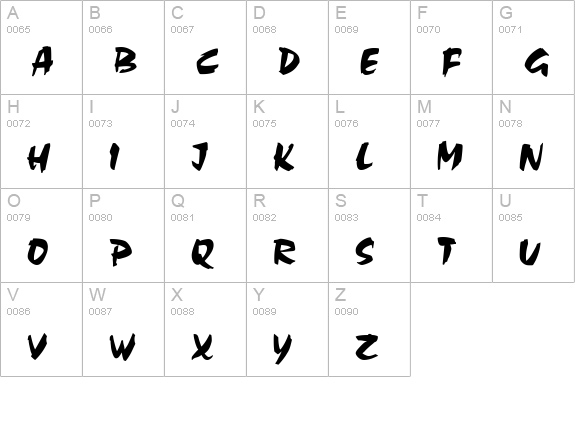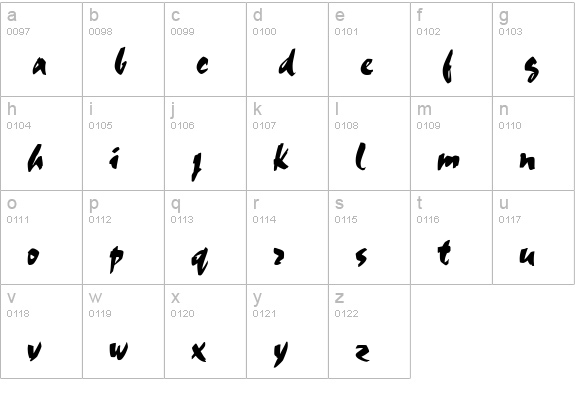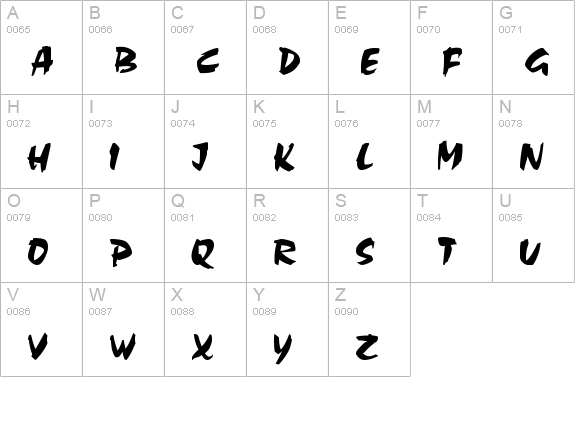
Choc MN font is a charming and elegant typeface that exudes a sense of sophistication and style. With its smooth curves and vintage-inspired design, this font is perfect for adding a touch of class to any project. Whether you're designing a wedding invitation, crafting a logo, or creating a beautiful poster, Choc MN font is sure to make a statement. The best part? Choc MN font is completely free to download at FontsMarket.com. This means you can add this stunning font to your collection without breaking the bank. Don't miss out on the opportunity to elevate your designs with the timeless beauty of Choc MN font - download it today and let your creativity shine!